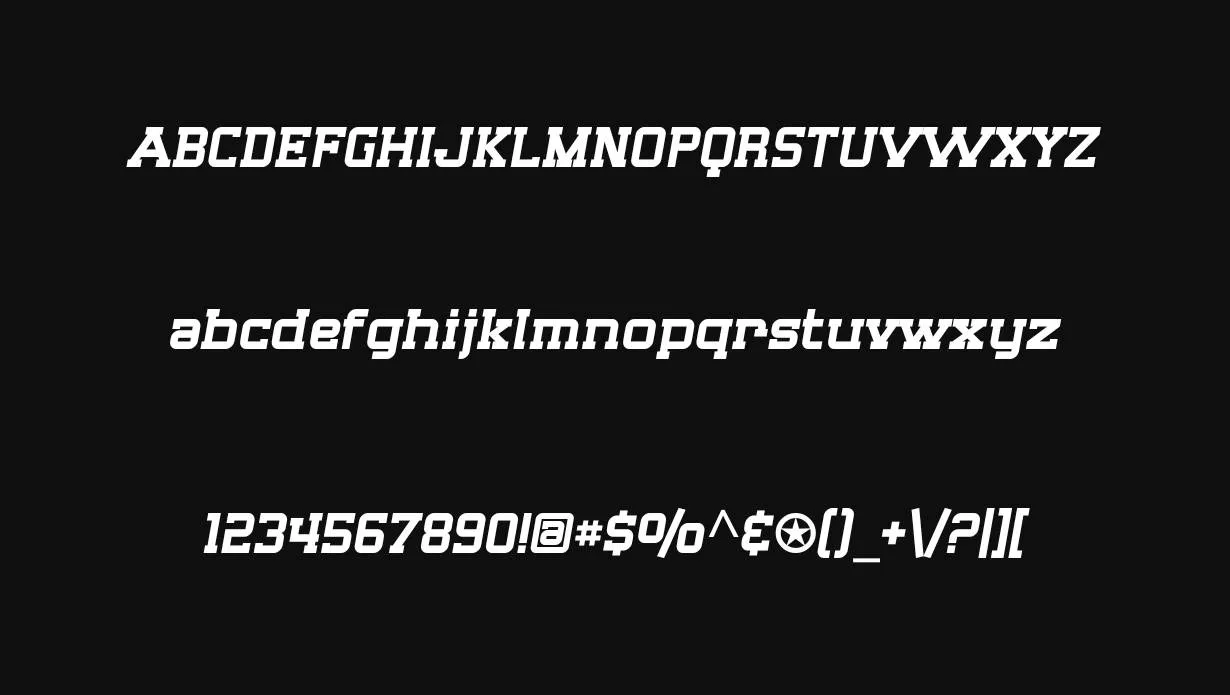
The “SF Big Whiskey” typeface, created by ShyFonts, is a strong and impactful font that stands out with its bold letter shapes.
It brings a sense of ruggedness and boldness to your words, making it suitable for projects that require a powerful and eye-catching appearance. SF Big Whiskey is often used in posters, banners, and designs where a strong and commanding presence is desired.
View of SF Big Whiskey Font Family